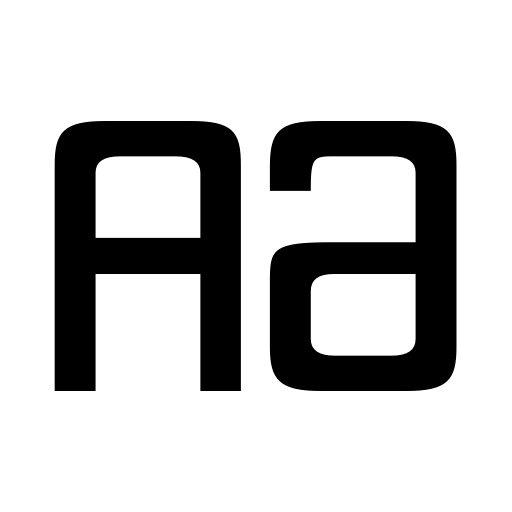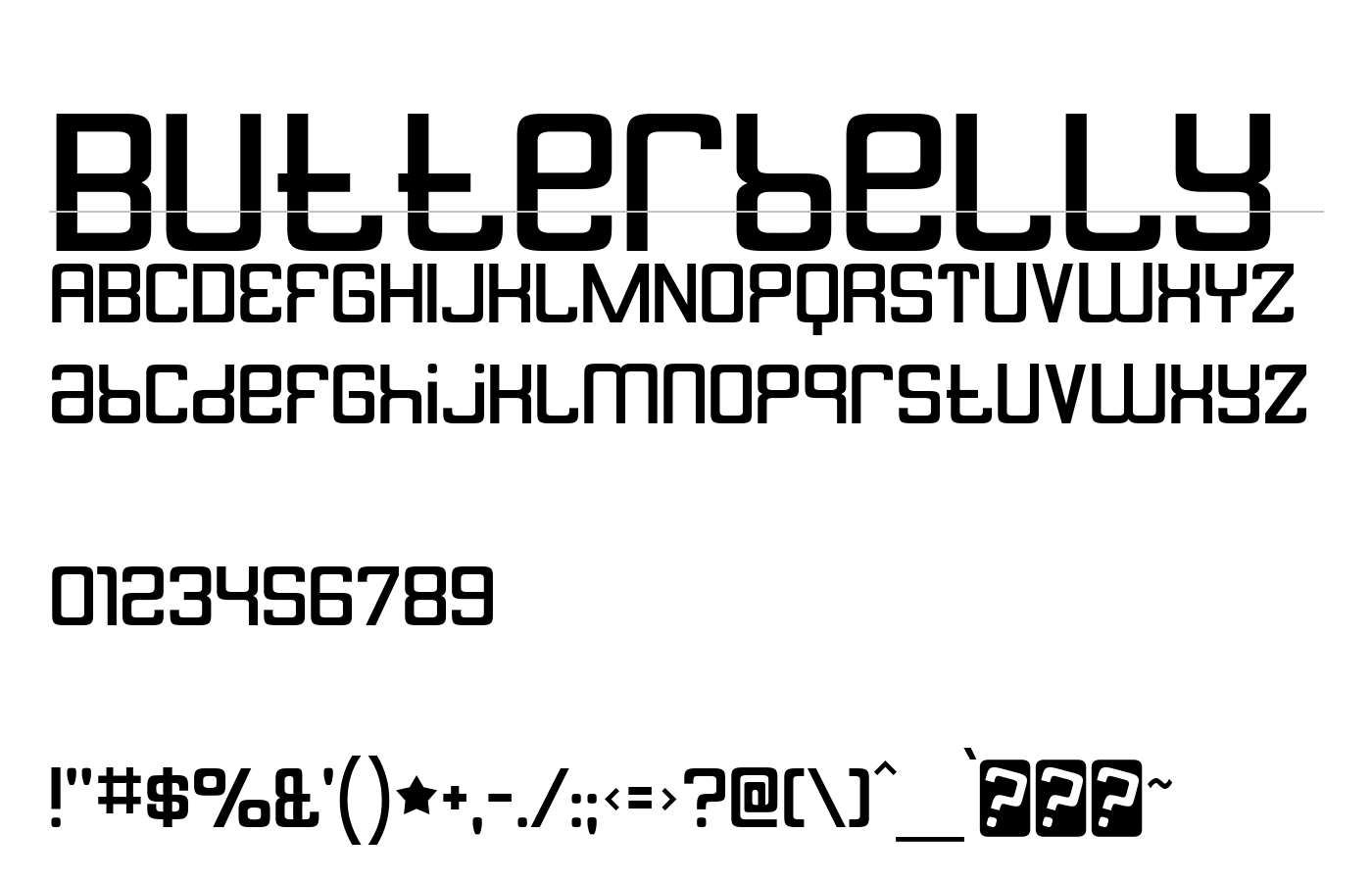
Butterbelly is a modern, condensed sans-serif font with a geometric, almost futuristic feel. Its uniform stroke weight, tall x-height, and rounded corners give it a clean yet approachable look, making it ideal for tech branding, posters, and editorial headlines that need a contemporary yet friendly tone. The font’s unique letterforms, such as the squared curves and distinct lowercase shapes, add personality while maintaining legibility.
Butterbelly Font
About Butterbelly Font